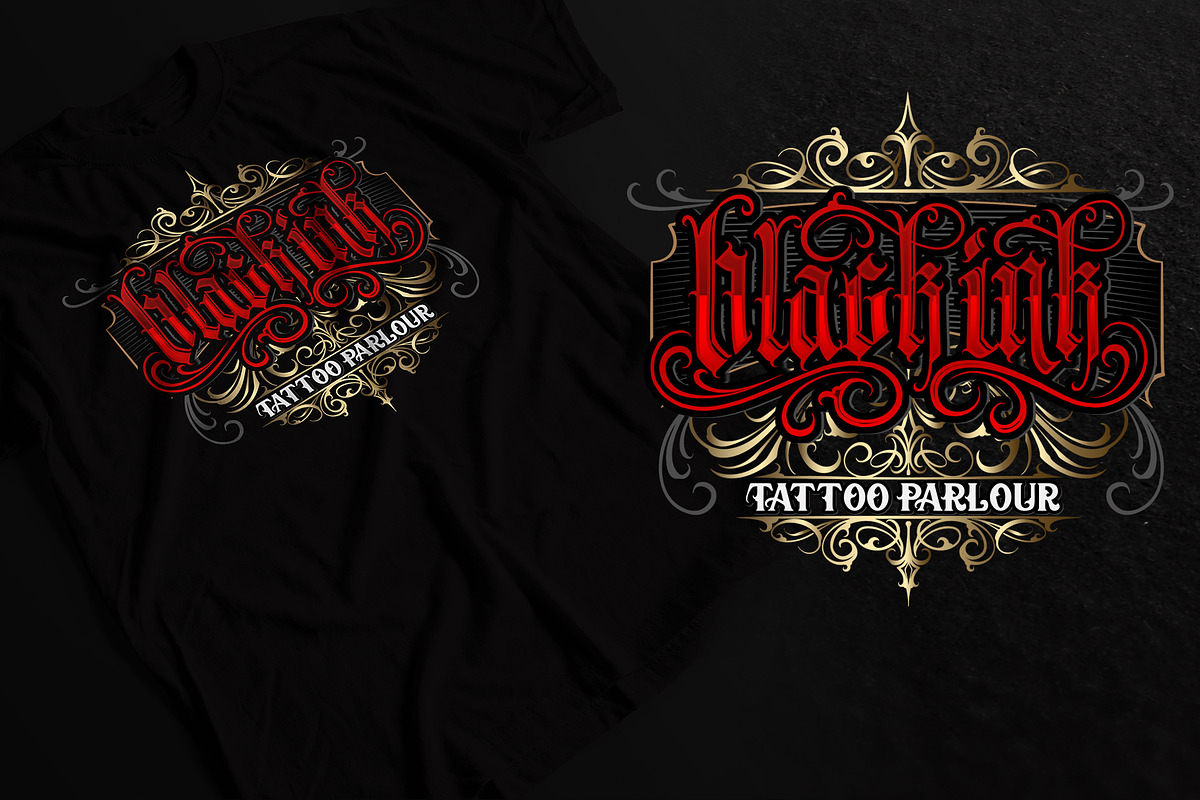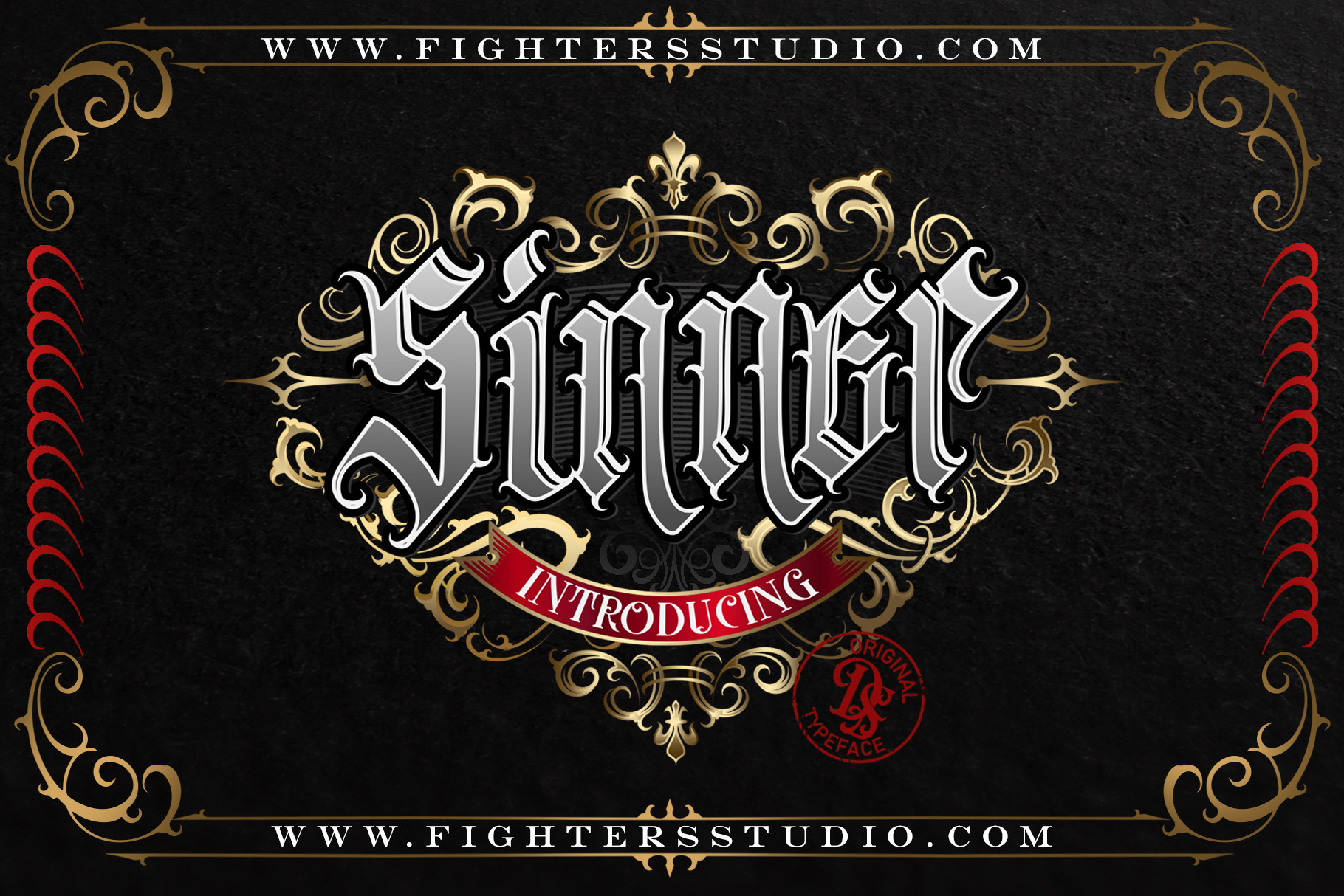
SINNERS FONT + Decorative bonus
Dansdesign Proudly present SINNERS FONT blackletter font, This font is made with references to various letters that I combine and design with my style.
SINNERS FONT are great and usefull for product logo, poster title, headline, packaging, badge, wedding card logo, clothing brand logo,Vintage design and much more